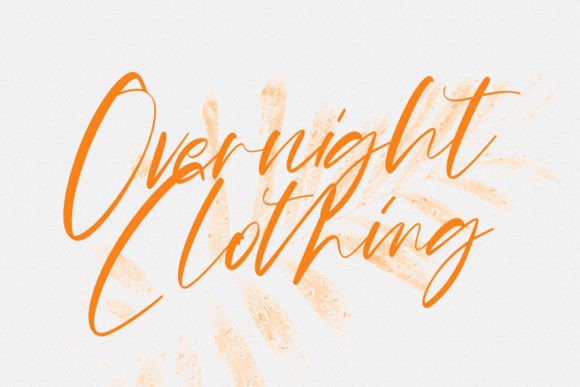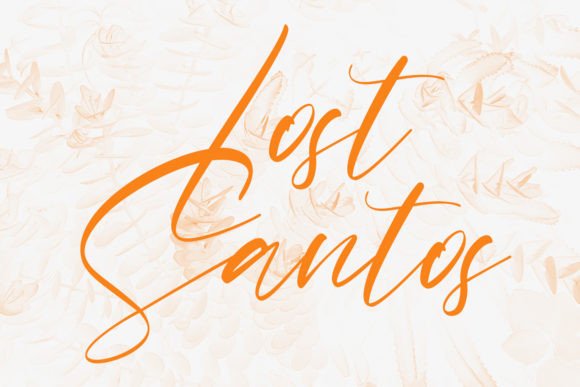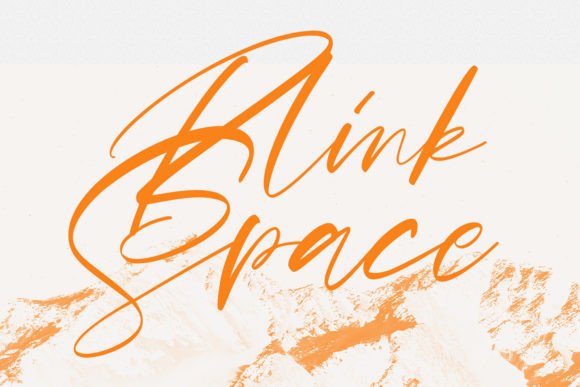
Introduction to Quiny Alissa Font Font
Fonts play a crucial role in design, and the Quiny Alissa Font font is a typeface that brings both character and versatility to any project. Whether you’re working on a branding project, a website, or a print design, the Quiny Alissa Font font offers a unique style that can elevate your work.
Quiny Alissa is an elegant and expressive script font.
It has a classy, elegant, and modern look that can be used for logos, branding, invitations, stationery, wedding designs, social media posts, and much more .
The Quiny Alissa Font font is more than just a typeface – it’s a design tool that helps you communicate your message with style and clarity. Its unique character set and versatile design make it suitable for a wide range of applications, from elegant invitations to bold headlines.
With its carefully crafted letterforms and balanced proportions, the Quiny Alissa Font font ensures readability and visual appeal across all mediums.
What makes Quiny Alissa Font font special?
The Quiny Alissa Font font stands out with its unique design, exceptional readability, and versatility across various design applications.